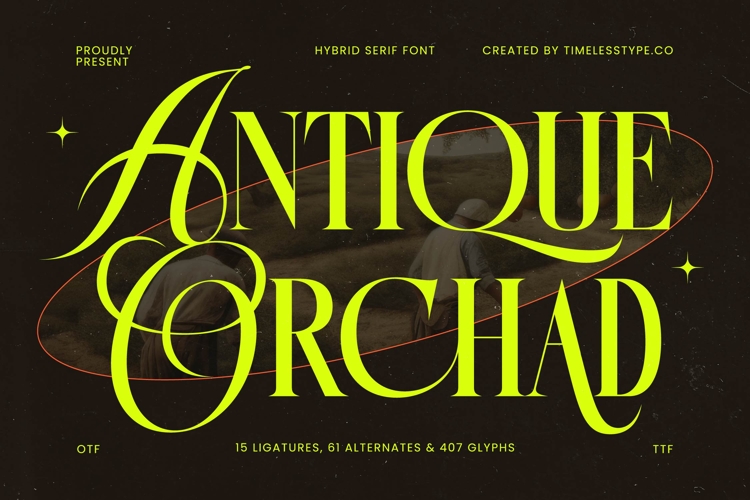
Antique Orchad - Hybrid Serif Font
Elevate your designs with a touch of timeless sophistication and contemporary flair. Introducing Antique Orchad - Hybrid Serif Font, a masterpiece of typographic artistry. This font expertly blends classic serif elegance with a modern, high-contrast aesthetic, creating a truly unique visual presence. Its distinctive strokes and refined forms are engineered to command attention, offering a premium feel that resonates with discerning audiences.
Discover unparalleled design flexibility and intricate detailing. Antique Orchad - Hybrid Serif Font boasts a rich character set, including 15 meticulously crafted ligatures and 61 expressive alternates. These features allow for exceptional customization, enabling designers to create bespoke logotypes, captivating headlines, and memorable brand identities. It's perfect for luxury branding, high-end packaging, editorial design, and any project demanding a strong, sophisticated typographic statement.
Extend your brand's reach with seamless international appeal. With its extensive multilingual support, Antique Orchad - Hybrid Serif Font adapts seamlessly across global markets, making it incredibly versatile for international projects. This robust feature set ensures your message remains impactful and culturally resonant, regardless of language. It guarantees global accessibility without compromising its inherent elegance and distinctive charm, establishing a truly worldwide presence.